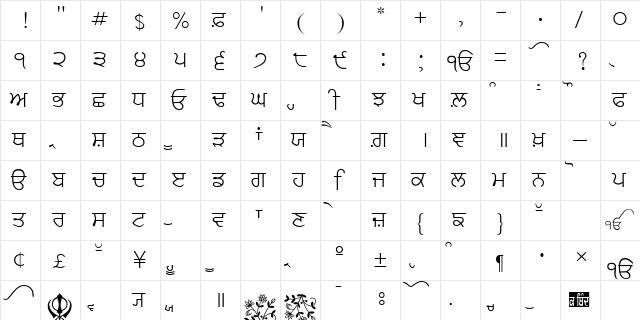
GurbaniAkharLight Regular
| Designer | Kulbir S. Thind |
Design Context for GurbaniAkharLight Typeface
GurbaniAkharLight takes a measured approach to typography — its balanced proportions and neutral character make it a reliable workhorse for both digital and print work. The delicate stroke weight brings airiness and refinement to layouts.